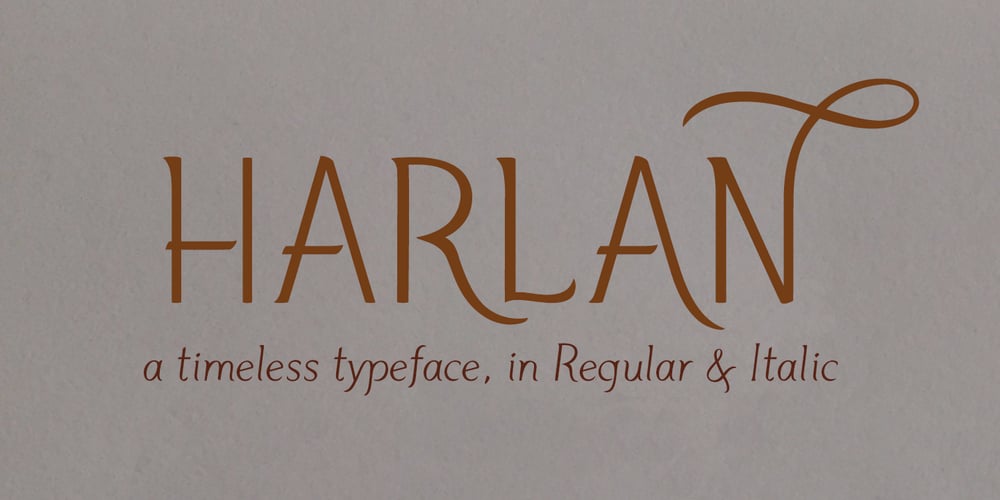
Harlan Font Family was designed by Laura Condouris and published by Trial by Cupcakes. Harlan contains 2 styles and family package options. Harlan is from another place and time. But not just one specific place or time– with its barely-there, knife’s-edge serifs, and its smooth curves and flourishes, Harlan feels both vintage and modern; both feminine and masculine. Inspired by the Baltimore bar “WC Harlan”, which in turn was inspired by the old candle-lit bars of France, the tucked-away osterias of Italy, and the antique books and journals one might find in a patron’s hand. It’s a font you’ll reach for when you’re looking for something refined and elegant, but not too stylized or stuffy.